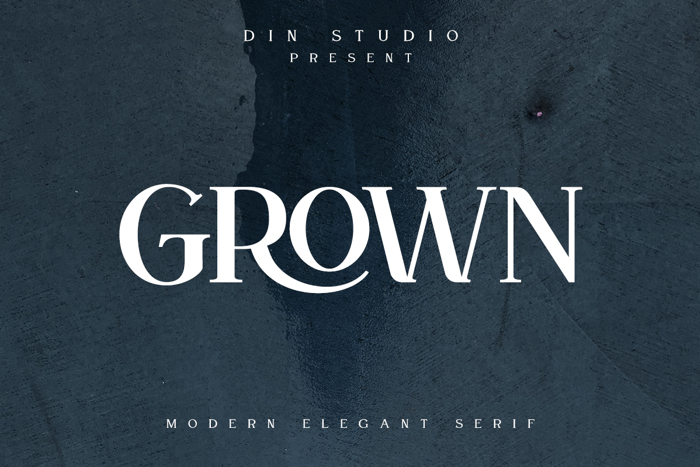
Grown Font
Product Description :
GROWN is a modern and clean display (Serif) font. Create from our talented font designer. The design of typeface will make your design more beautiful and inspiring. This font will suitable for any project, like branding, print template, logo and etc.
Features include:
• Alternates
• Ligatures
• Multilingual Supports
• PUA Encoded
• Numerals and Punctuations